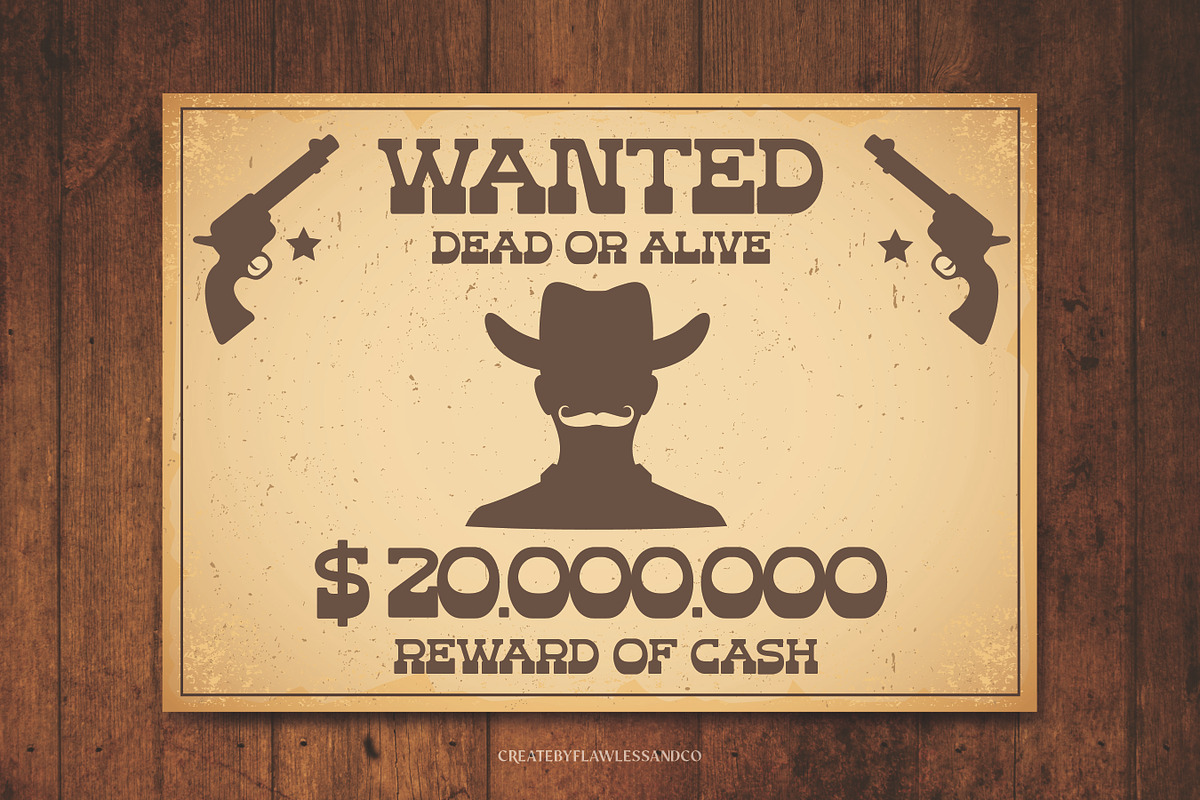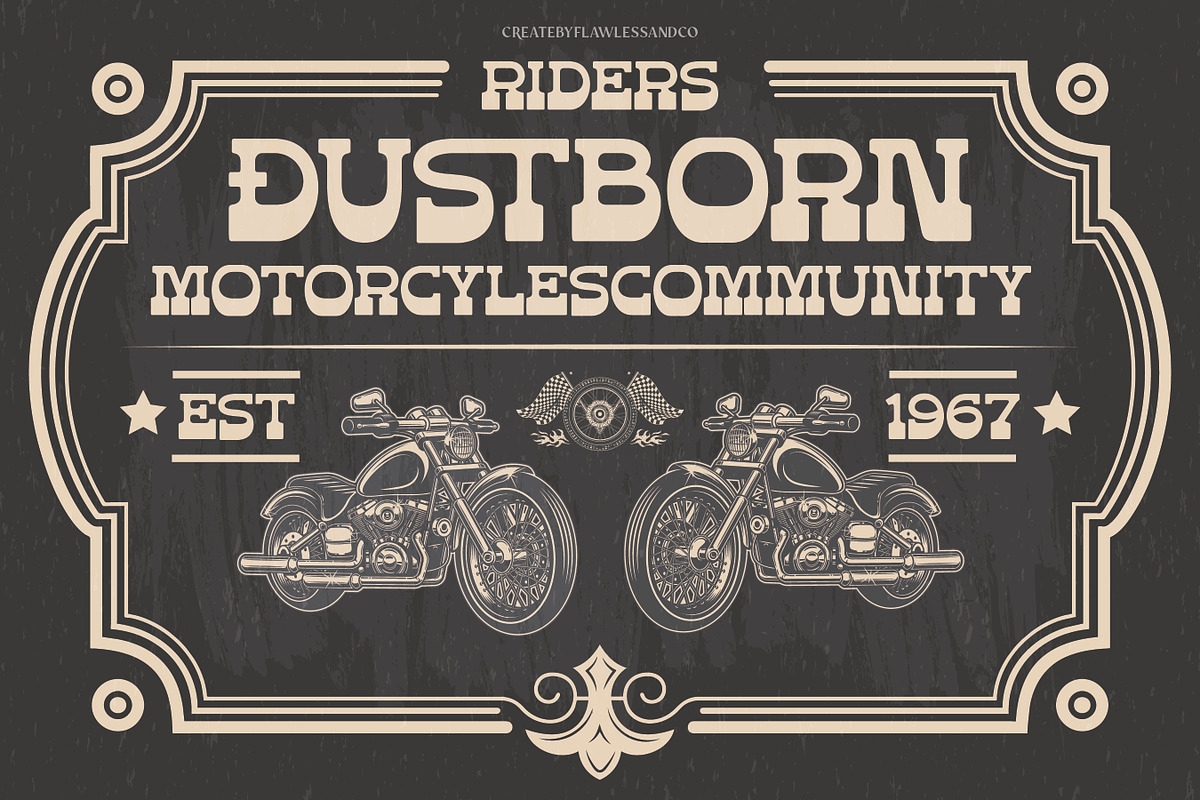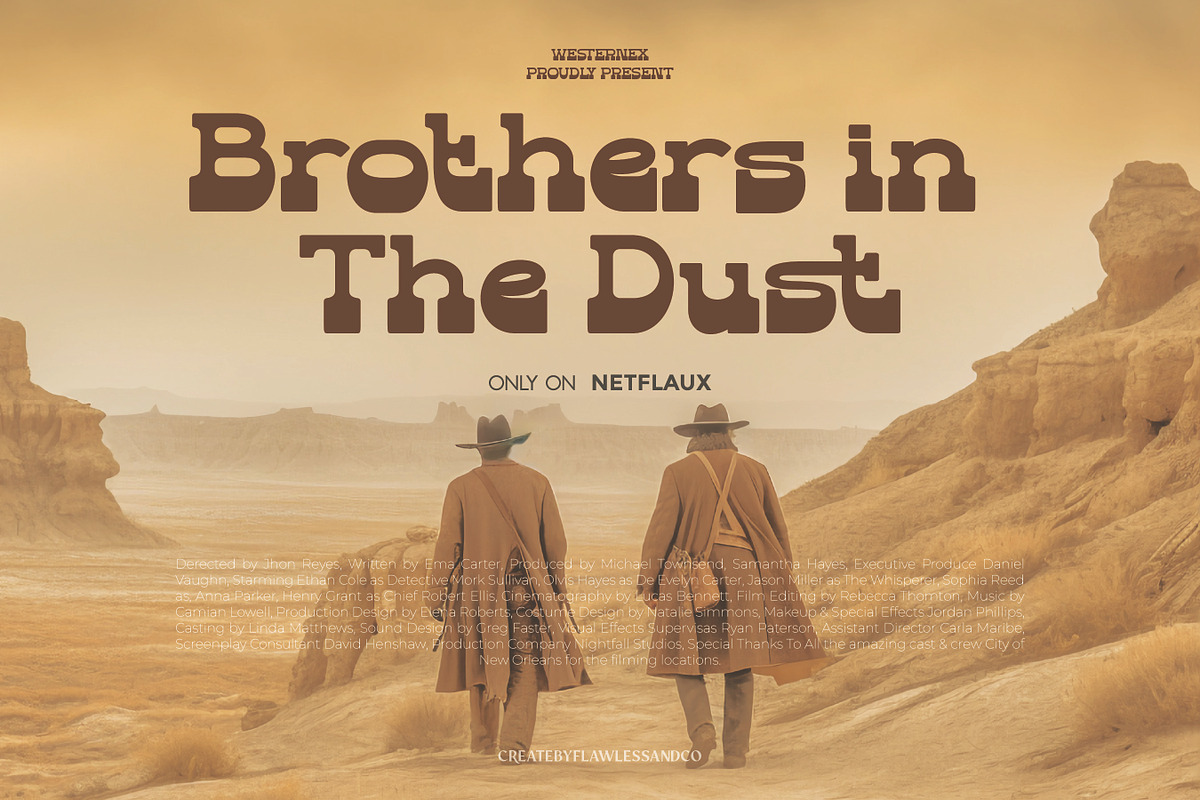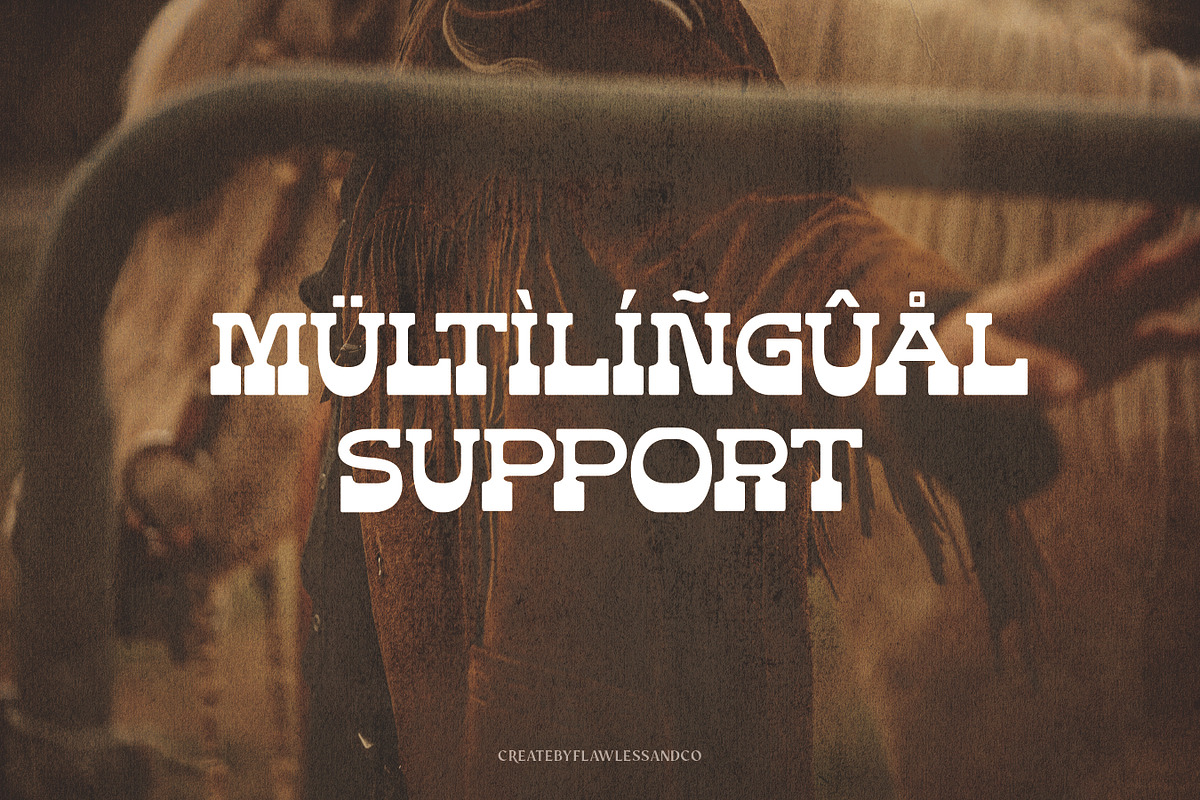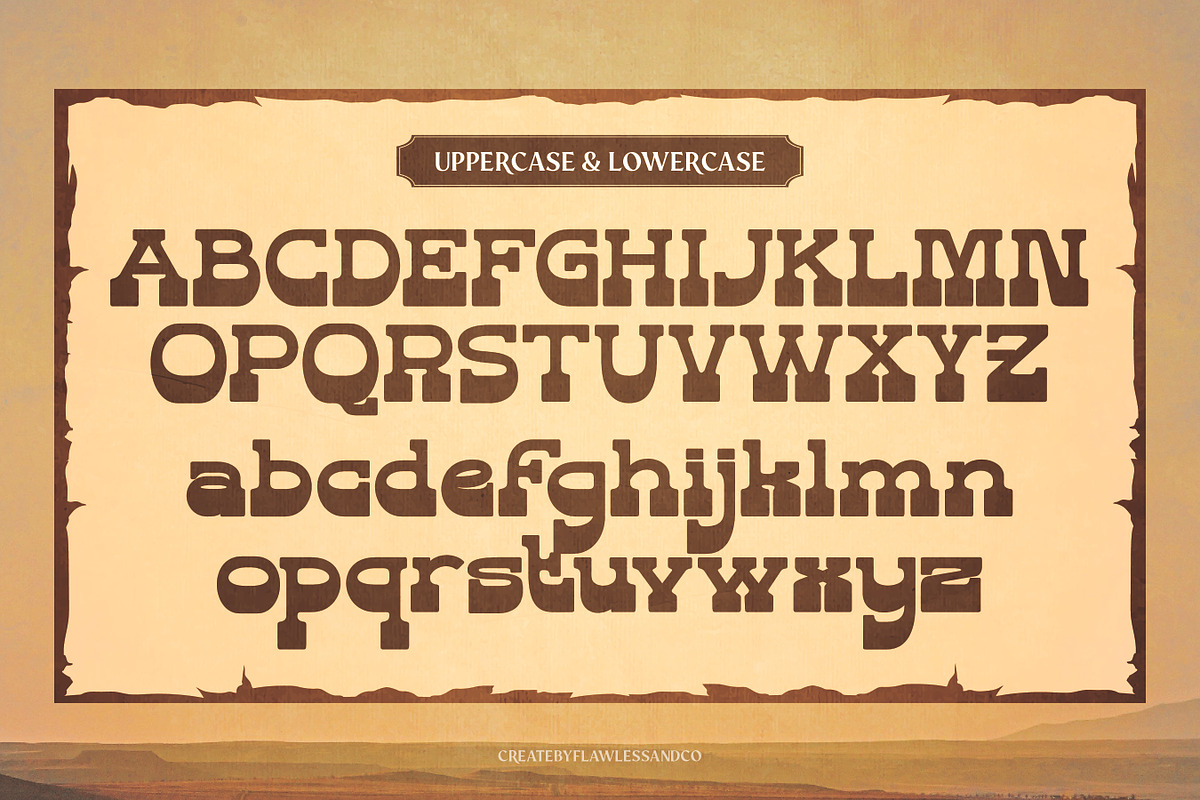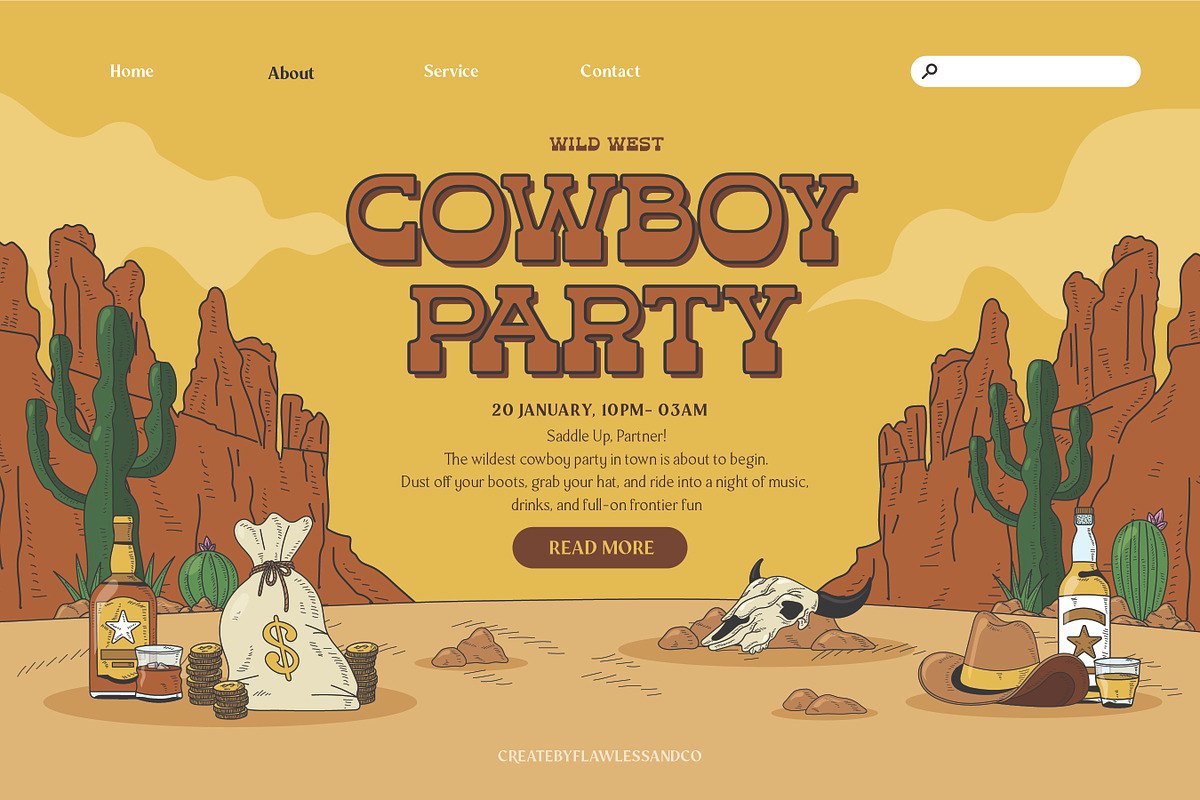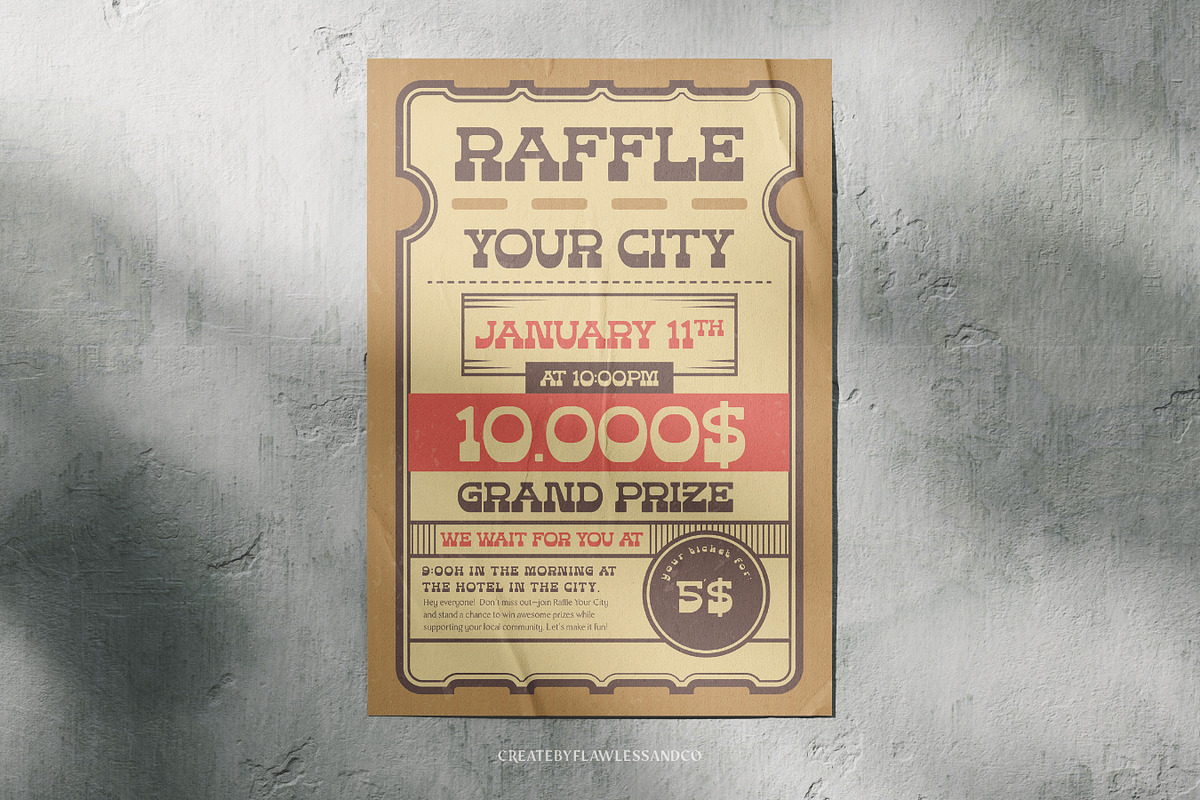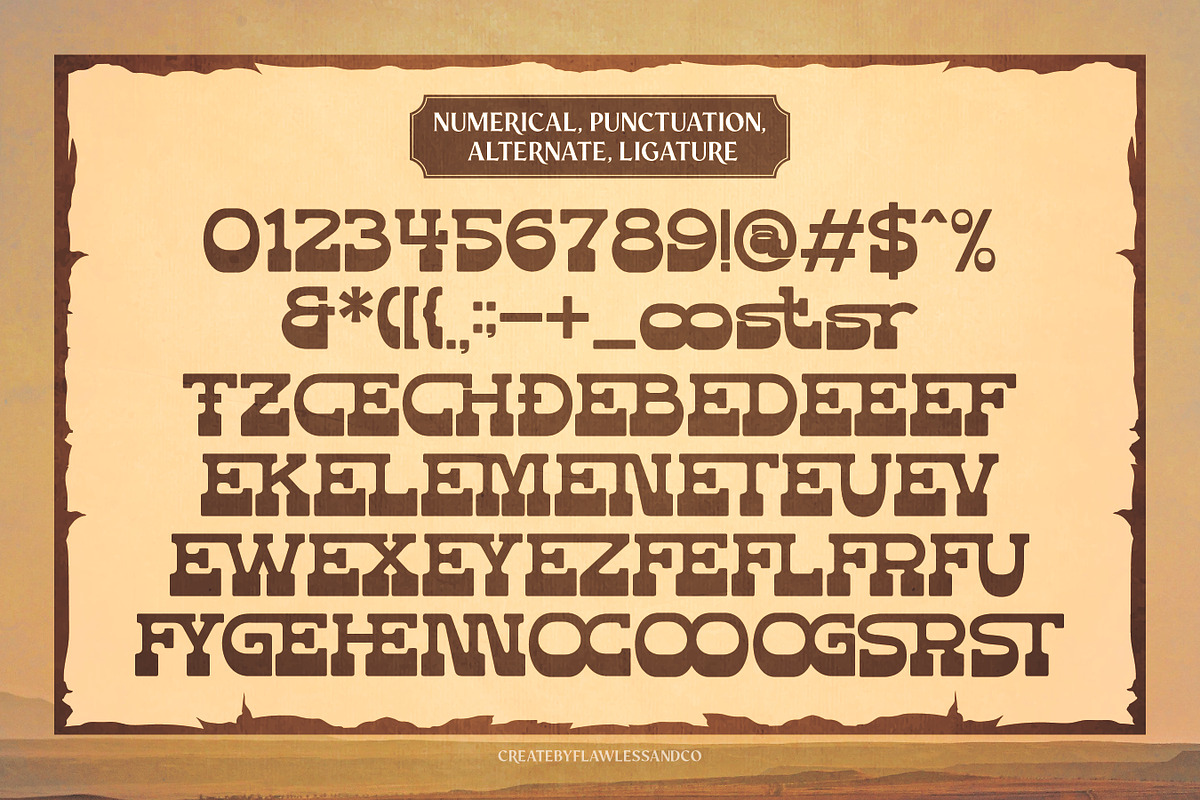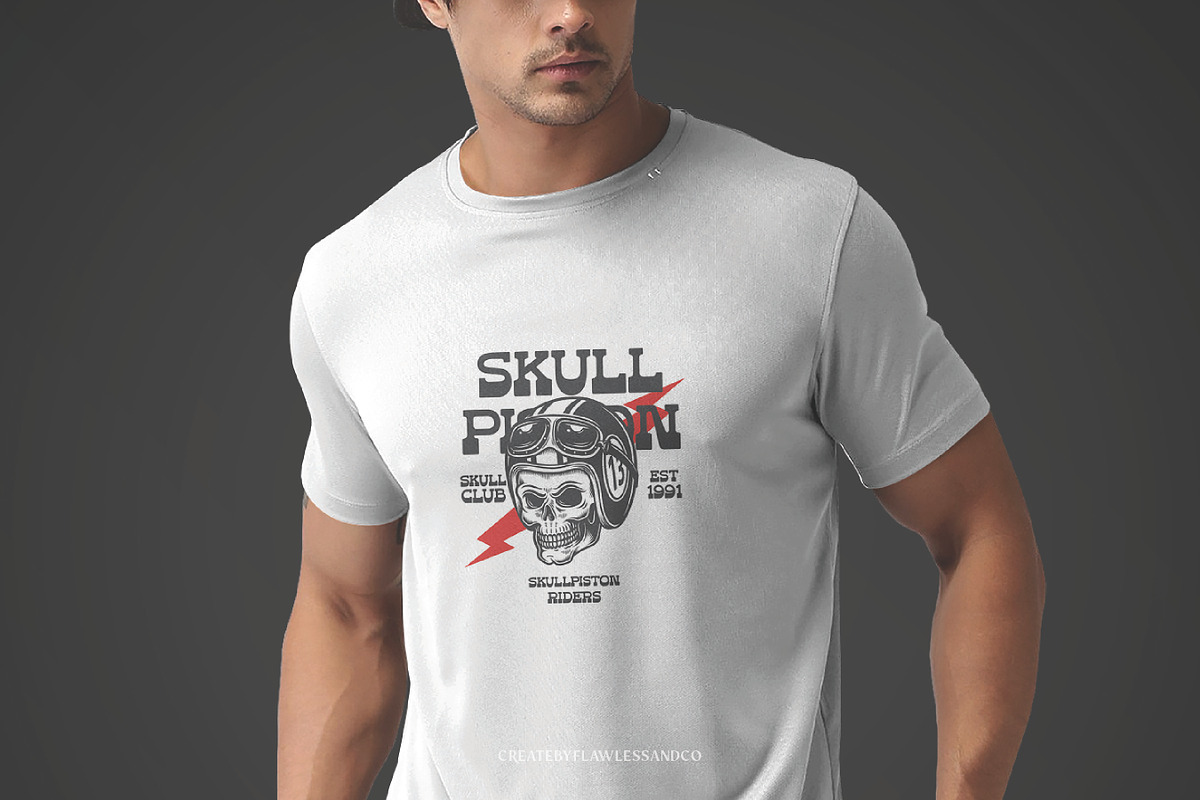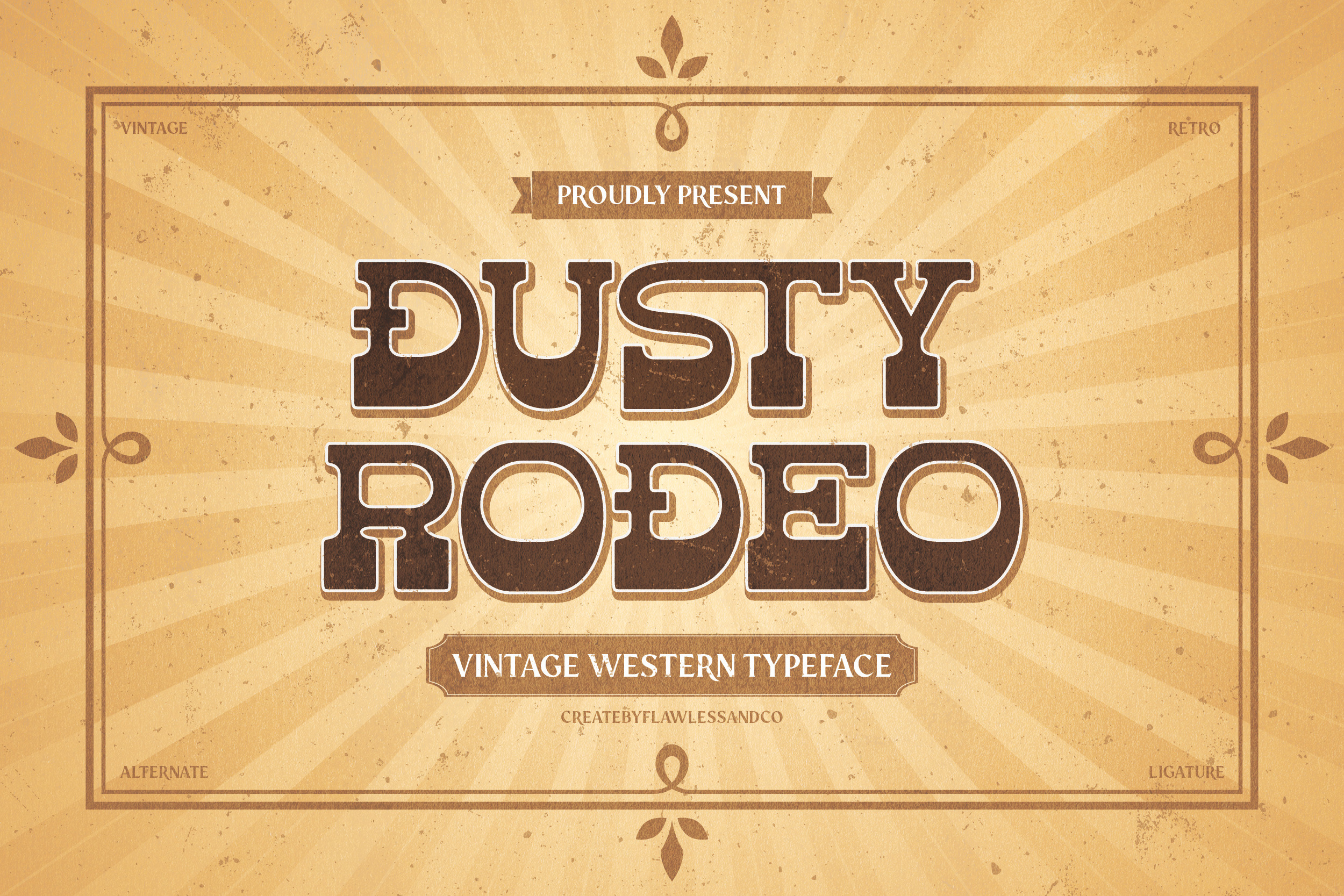
Dusty Rodeo - Vintage Western Font
Dusty Rodeo – Western Cowboy Display Font
Dusty Rodeo is a bold Western-style display font that captures the rugged charm of the Wild West. Inspired by classic rodeo posters and cowboy culture, this typeface delivers strong, vintage character with sharp edges and an unmistakable Western flair.
- Western-themed branding and packaging
- Vintage logos and labels
- Rodeo or cowboy-style posters
- Apparel, signage, and rustic headlines
- Whiskey, saloon, or farm-inspired designs
- All uppercase letters A–Z
Who Should Use Dusty Rodeo?
Dusty Rodeo is perfect for creatives and brands looking to inject a bold Western spirit into their designs. This font is ideal for:
- Graphic Designers crafting vintage or rustic layouts
- Apparel Brands seeking a strong cowboy aesthetic for t-shirts, hats, or jackets
- Whiskey & Craft Beverage Brands wanting authentic Western flair on labels or packaging
- Event Organizers promoting rodeos, country festivals, or Wild West shows
- Western-themed Restaurants & Bars needing signage or menus with personality
- YouTubers or Content Creators making Western-inspired thumbnails or intros
- Crafters & Cricut Users creating Western decor, wedding themes, or party props
Whether you're designing for a modern cowboy brand or reviving the charm of the old frontier, Dusty Rodeo gives your work an authentic, rugged character.
A Must-Have Font for Brand and Logo Creators
Dusty Rodeo is a powerhouse typeface for brand and logo designers who want to make a bold, unforgettable statement. With its strong Western character and vintage charm, this font brings instant personality and storytelling to your branding projects. Whether you're crafting a logo for a rugged outdoor brand, a Western-style apparel label, a craft beverage, or a rustic café, Dusty Rodeo delivers the visual punch needed to stand out. Its distinctive letterforms make it highly memorable and perfect for:
- Brand Identities with a bold, Americana or vintage flair
- Logos that need a touch of grit, history, and confidence
- Merchandise Designs with strong character and appeal
- Badges, Labels & Emblems that demand authenticity
For designers who build brands that leave a mark, Dusty Rodeo is an essential tool in the creative arsenal.
Why Choose "Dusty Rodeo" for Brand and Logo Projects?
Dusty Rodeo stands out with a bold Western soul, making it more than just a font—it’s a branding weapon. Here’s why it’s perfect for your next logo or identity design:
- Instant Personality: Its vintage Western style adds strong character and charm, making logos feel timeless and authentic.
- Versatile Appeal: Works across industries—from fashion and food to coffee shops, music, and lifestyle brands.
- Memorable Letterforms: Unique shapes that help your logo stick in people's minds.
- Built for Impact: Designed to grab attention in bold headlines, signage, packaging, and badges.
- Design Flexibility: Comes with stylistic alternates and ligatures for customization and creative freedom.
Whether you're designing for a rugged outdoor brand or a handcrafted goods label, Dusty Rodeo helps your visuals stand tall and proud.
Suitable for:
Dusty Rodeo is perfect for a wide range of creative projects that call for bold personality and vintage Western charm. From logos and brand identity work to product packaging, rustic signage, apparel design, posters, and coffee shop branding—this font brings rugged authenticity to every visual. Whether you’re crafting labels for artisan goods, designing badges, or creating editorial layouts with a retro twist, Dusty Rodeo delivers standout style that captures attention.